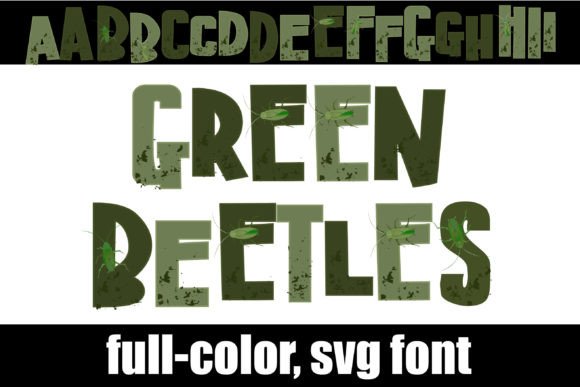
Embark on a joyous typographic journey with Green Beetles Font—a modern masterpiece crafted to encapsulate the exuberant spirit of St. Patrick's Day. This captivating font family, brought to you by the artistic visionaries at Illustration Ink, unveils a world of playful shapes and captivating elements that dance together to create a visual spectacle like no other.
With Green Beetles Font, your creative projects will blossom into vibrant expressions of joy and festivity. Its cheerful and whimsical design adds an instant touch of enchantment to any design, transforming ordinary words into captivating works of art. Unleash your imagination and let Green Beetles Font weave its magic through your designs, leaving a trail of smiles and good cheer wherever it goes.
More than just a font, Green Beetles Font is an open invitation to explore the realm of boundless creativity. Its PUA encoding opens up a treasure trove of glyphs and swashes, empowering you to effortlessly incorporate intricate details and elegant flourishes into your designs. Let Green Beetles Font be your creative compass, guiding you through a journey of self-expression and artistic discovery.
Green Beetles Font is not just a tool; it's a conduit for expressing your jubilant spirit and spreading happiness. Its lively and engaging design has the power to uplift moods, inspire creativity, and create a sense of lightheartedness in all who behold it. Let Green Beetles Font be your artistic ally, helping you craft designs that resonate with joy, positivity, and an infectious zest for life.